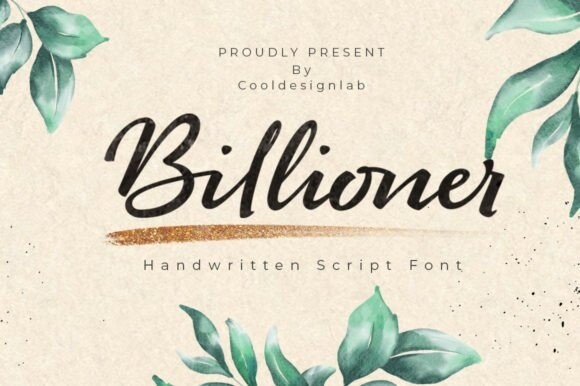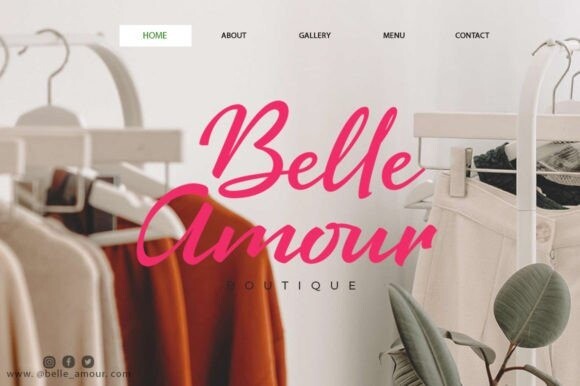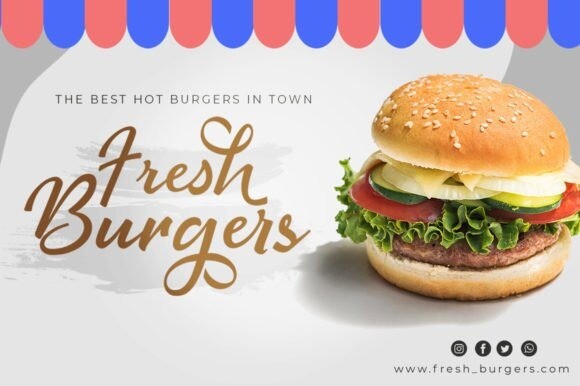
Billioner Font
Billioner is a new slick calligraphy font. This gorgeous script is for those who need some elegance and style for their designs and is perfect for wedding invitations, save date cards, feminine branding, and other necessities. This font is modern and simple, but still authentic.